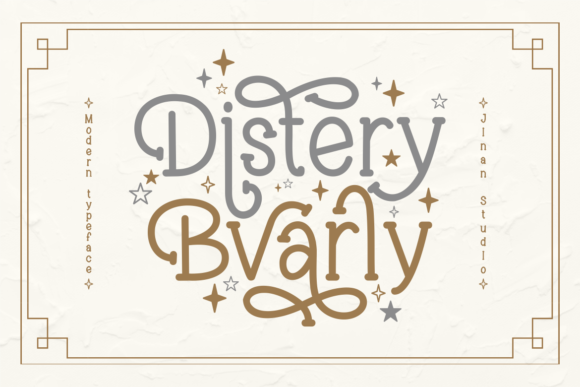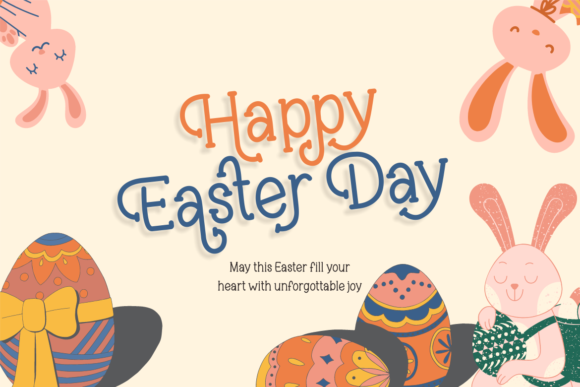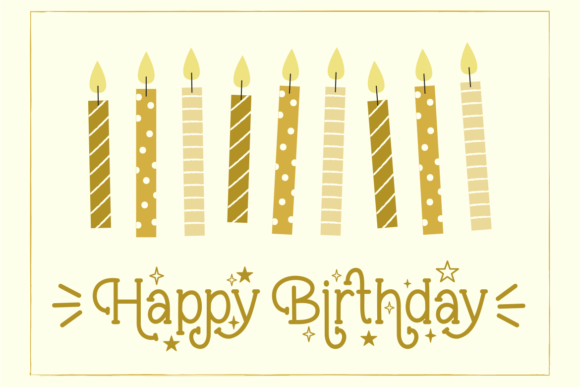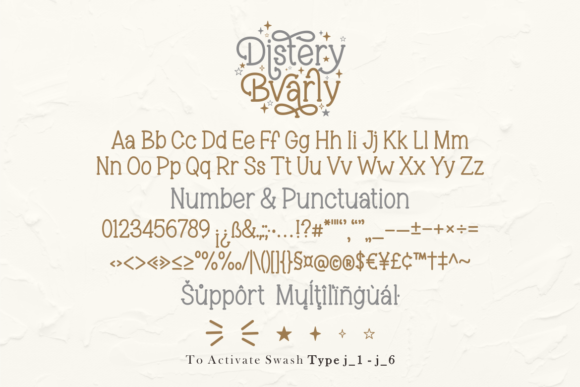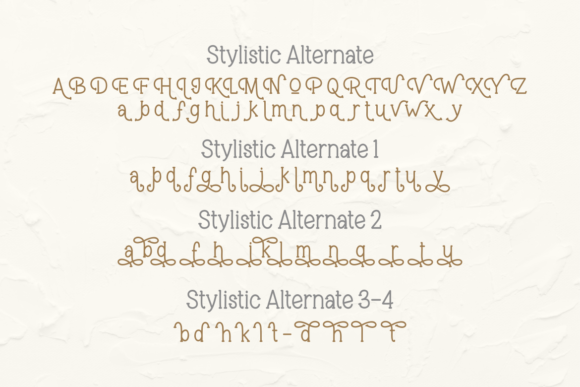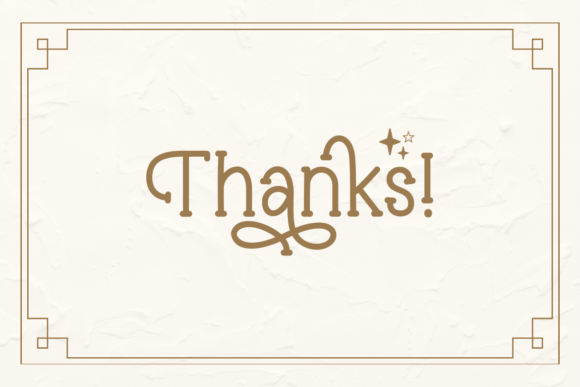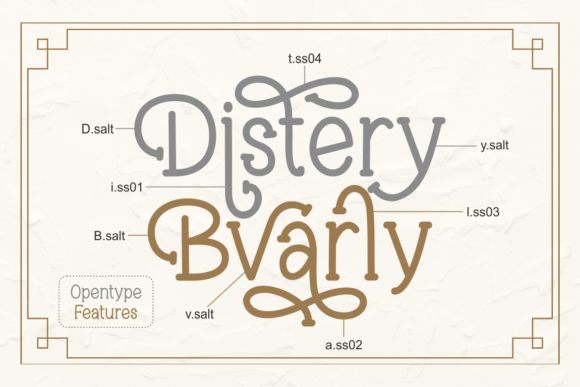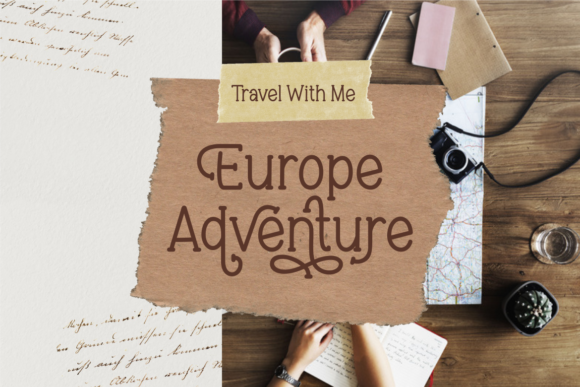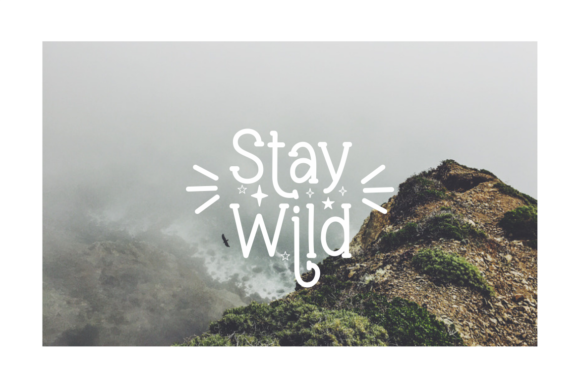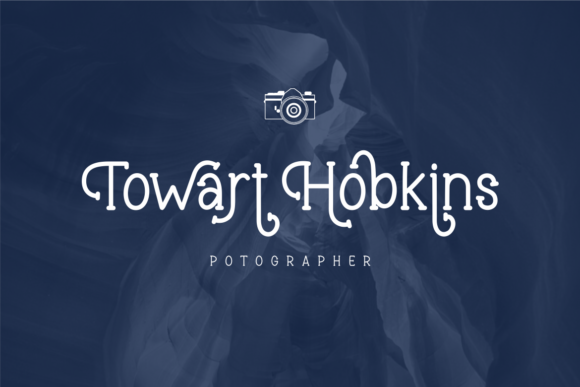
Distery Bvarly
Distery Bvarly Fonts
Distery Bvarly: A Stylish and Modern Slab Serif Font
Distery Bvarly is a stylish and modern slab serif font that suits a wide range of applications. From greeting cards to headlines, branding, and packaging, this font guarantees a touch of happiness in each of your creations. Additionally, it is PUA encoded, allowing easy access to all glyphs and ligatures.
Key Features of Distery Bvarly
• Stylish Design: Offers a modern and elegant look suitable for various applications.
• Slab Serif Structure: Features thick, rectangular serifs typical of slab serif fonts.
• Versatile Application: Ideal for projects ranging from logos to digital media.
• PUA Encoded: Allows easy access to all glyphs and swashes for enhanced design flexibility.
Ideal Uses for Distery Bvarly
Distery Bvarly’s unique characteristics make it particularly well-suited for:
When incorporating Distery Bvarly into your designs, consider these tips:
• Use for headlines or short blocks of text to showcase its stylish design.
• Utilize its versatility across various creative projects to enhance visual appeal.
Distery Bvarly is an excellent choice for designers looking to add a stylish and modern slab serif font to their typographic toolkit. Its ability to enhance various design projects makes it stand out in the world of typography. Whether you’re working on greeting cards, creating layouts for magazines, or developing content that requires a touch of elegance, Distery Bvarly offers the perfect blend of style and functionality.
Furthermore, Distery Bvarly’s unique design allows it to shine in various contexts. From vintage-inspired designs with a modern twist to more contemporary layouts that need a touch of uniqueness, this font can elevate your projects. Its striking yet functional style works particularly well in designs that require a thoughtful and engaging mood.
In conclusion, Distery Bvarly is a font that truly captures the essence of creativity and impact in typography. Its ability to work well in both minimalist projects and more elaborate layouts showcases its flexibility. For those looking to add a touch of unique charm to their work, Distery Bvarly can even enhance themed creations with its distinctive style. It’s the perfect choice for designers seeking to make a strong, stylish impact across a wide range of creative projects.